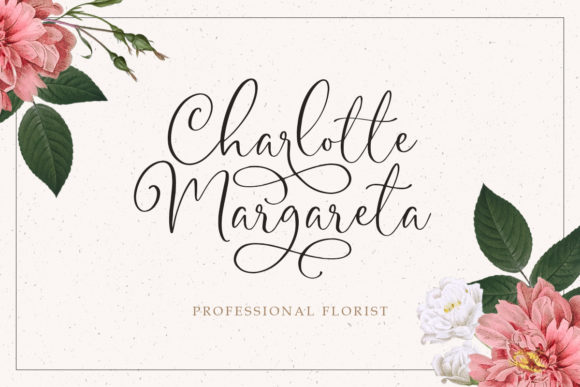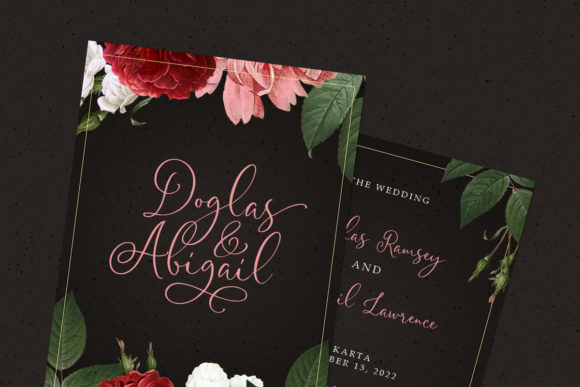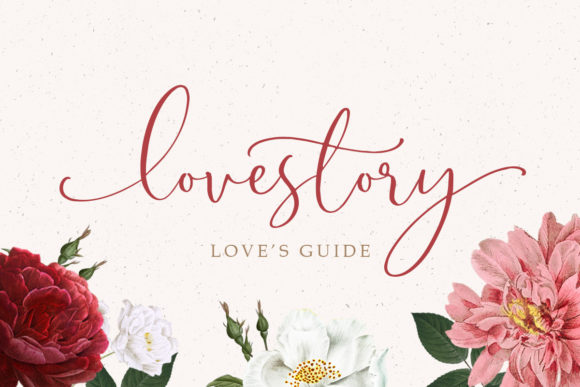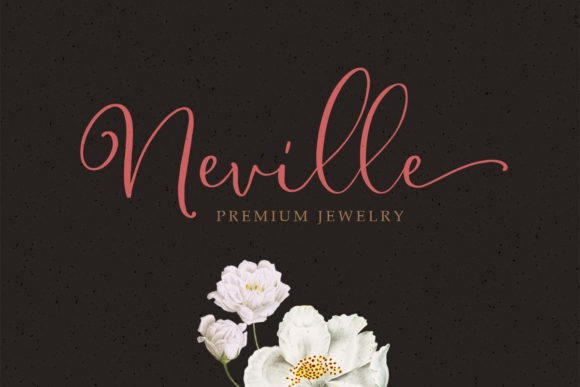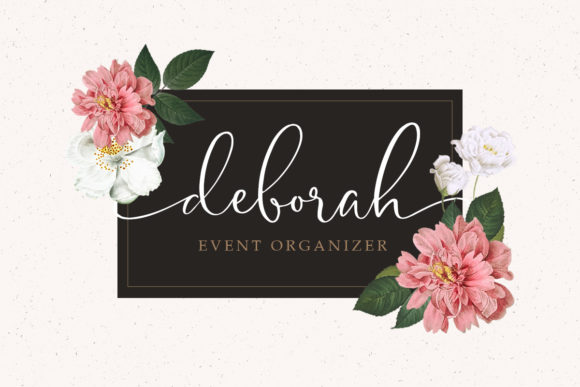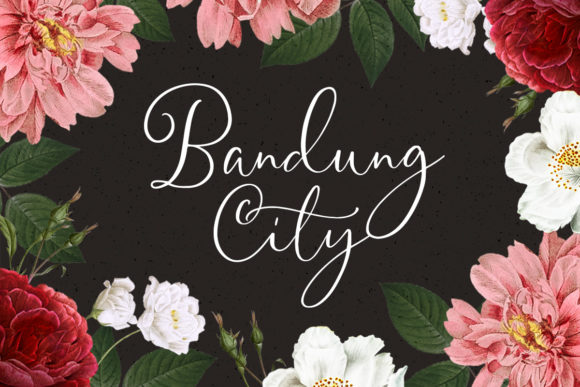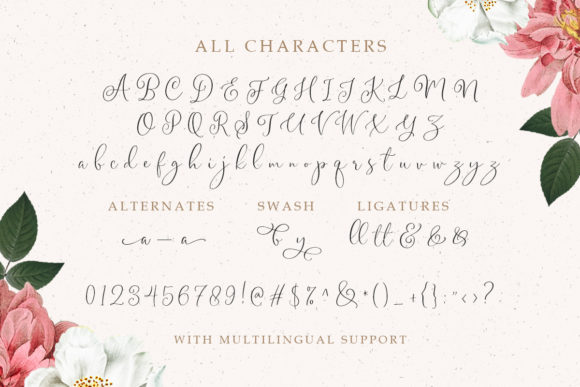
Gladiolus Font
About Gladiolus Font
Gladiolus is a gorgeous calligraphic script that will elevate any crafting idea to the highest level. Fall in love with this fancy script font!